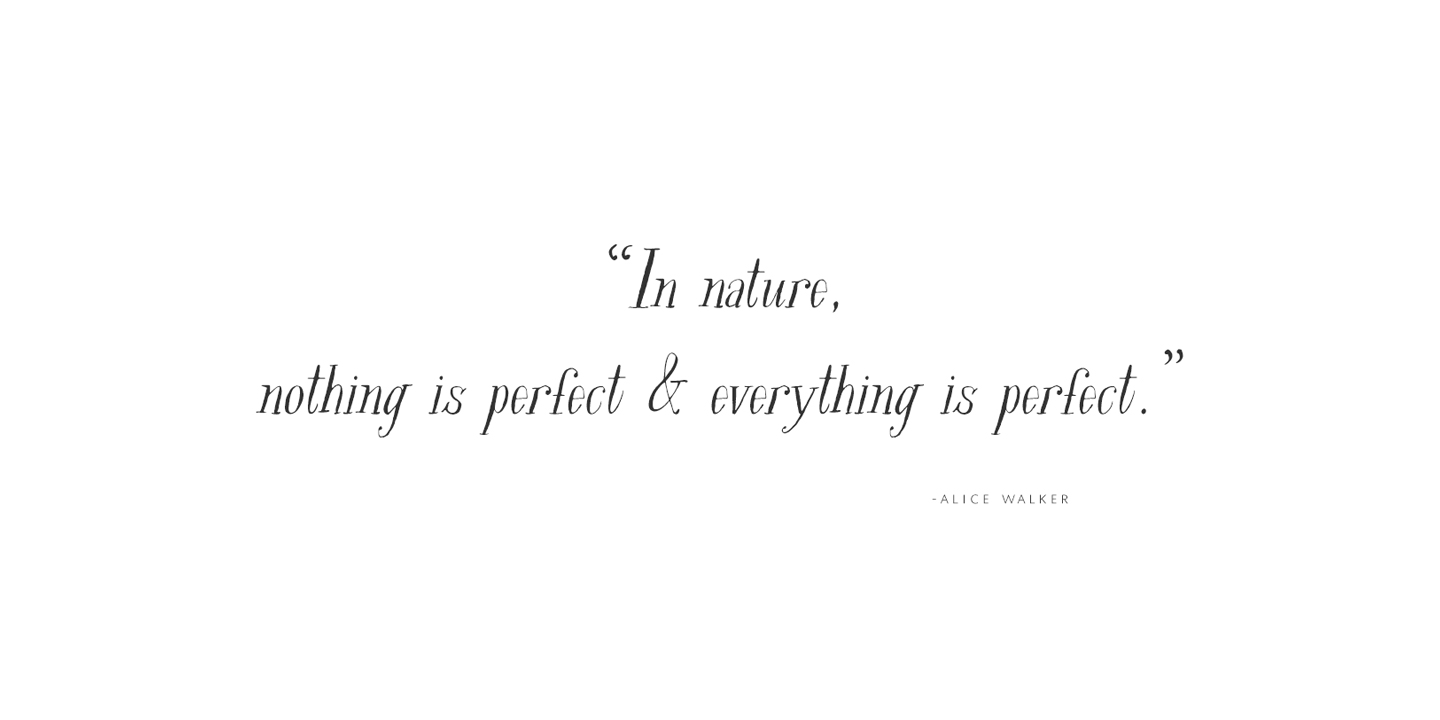
This distinctive typeface is perfect for vintage-inspired designs, museum exhibitions, scientific publications, book covers, poster designs, branding projects, logo creation, packaging design, and artistic displays that require an authentic specimen-like aesthetic.
Rare Bird Specimen V Font is exciting because it captures the essence of natural history documentation with its unique character set that mimics handwritten specimen labels found in ornithological collections. The font brings an authentic scientific charm to any project, making it ideal for designers who want to evoke a sense of discovery and academic excellence in their work.
The Rare Bird Specimen V Font family includes multiple weights and styles, offering regular, bold, italic, and condensed variations that provide designers with comprehensive typographic flexibility for various design applications and hierarchical text arrangements.
Whether you're creating educational materials, designing for natural history museums, or developing brand identities for scientific organizations, Rare Bird Specimen V Font Free Download delivers exceptional visual impact. This remarkable typeface combines historical authenticity with modern usability, making it an essential addition to any designer's font library. The careful attention to detail in each character ensures readability while maintaining the distinctive specimen label aesthetic that makes this font truly special for contemporary design projects requiring vintage scientific documentation styling.